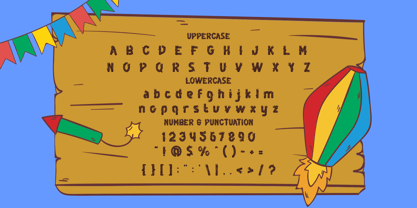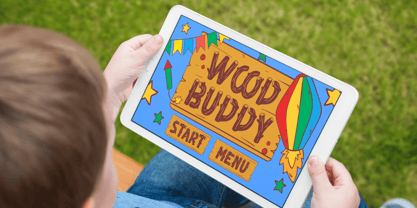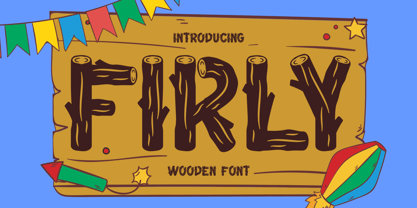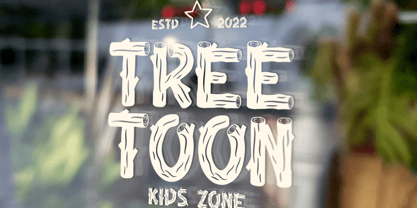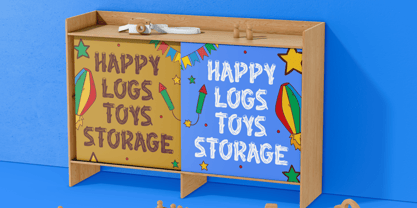
Firly
La familia tipográfica Firly fue diseñada por Yesie Erma Yunita y publicada por Shanaf. Firly contiene 1 estilos. Más información sobre esta familia
Firly Wooden Font is a playful display typeface inspired by natural wood shapes and child-friendly storytelling. Each letter appears chunky and solid, with rounded edges that feel safe and approachable. The strokes look thick and stable, creating strong readability at headline sizes. Subtle uneven details give the characters a carved wood impression without adding visual noise. The proportions feel slightly tall, helping words stand confidently in layouts. Every glyph feels organic, warm, and expressive, which supports cheerful communication. The font carries a handcrafted personality while staying clean and legible. This balance makes it ideal for designs that target families, kids, and playful brands. Firly Wooden Font brings a sense of imagination, nature, and fun into typography. From a style perspective, this font blends playful, display, and wooden aesthetics seamlessly. It works especially well for children products, toys, learning materials, and family brands. Food packaging, snack branding, and kid-focused merchandise benefit from its friendly tone. The font also fits posters, headlines, logos, book covers, and magazine titles. It performs well in invitations, greeting cards, stickers, and creative crafting projects. Firly Wooden Font helps products feel trustworthy, joyful, and memorable at first glance. The wood-inspired forms support themes related to nature, growth, and creativity. Designers can use it to build strong visual identities for kids businesses. It also suits educational content, games, and playful digital experiences. Firly Wooden Font delivers charm and clarity across print and digital platforms.